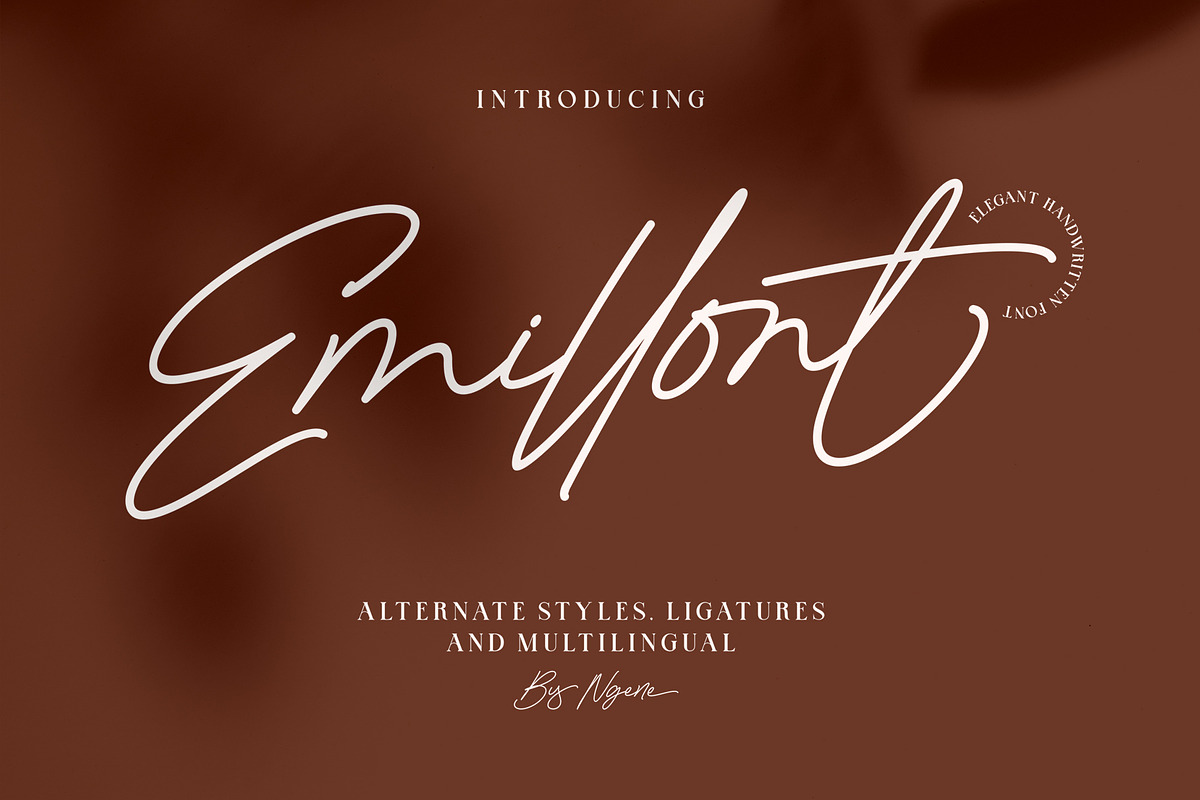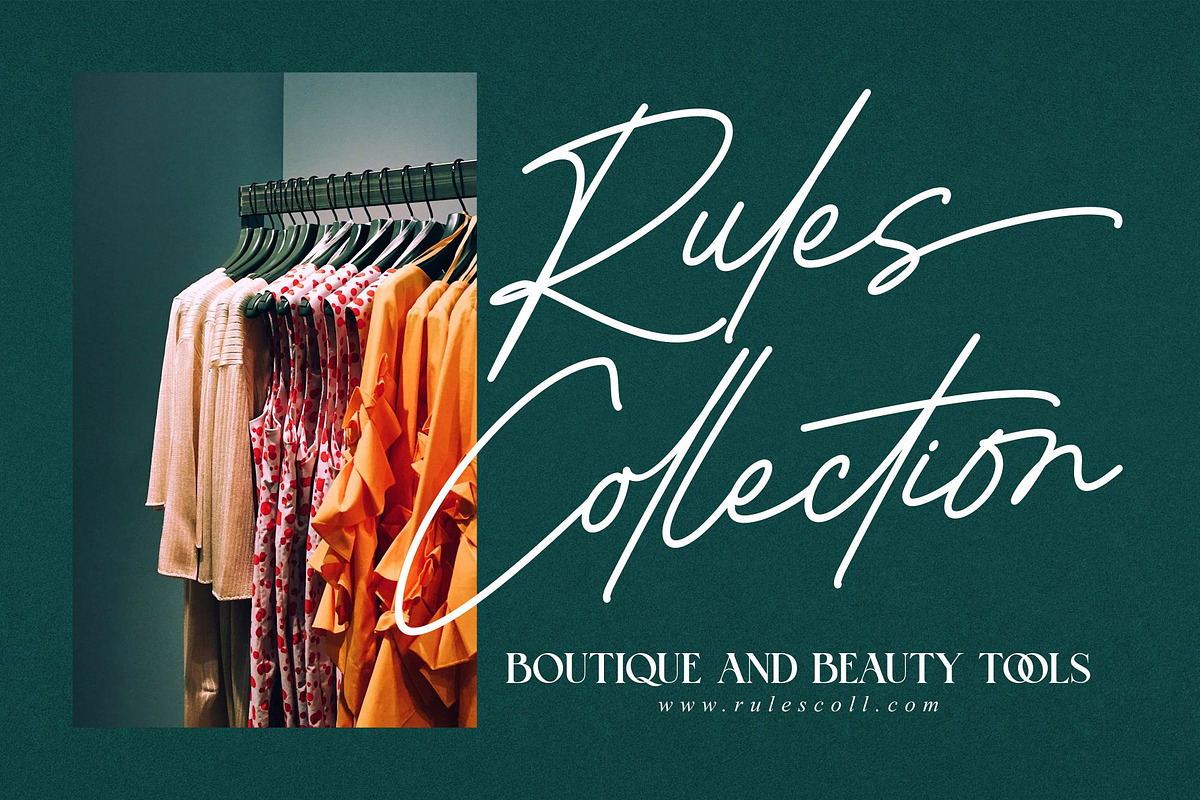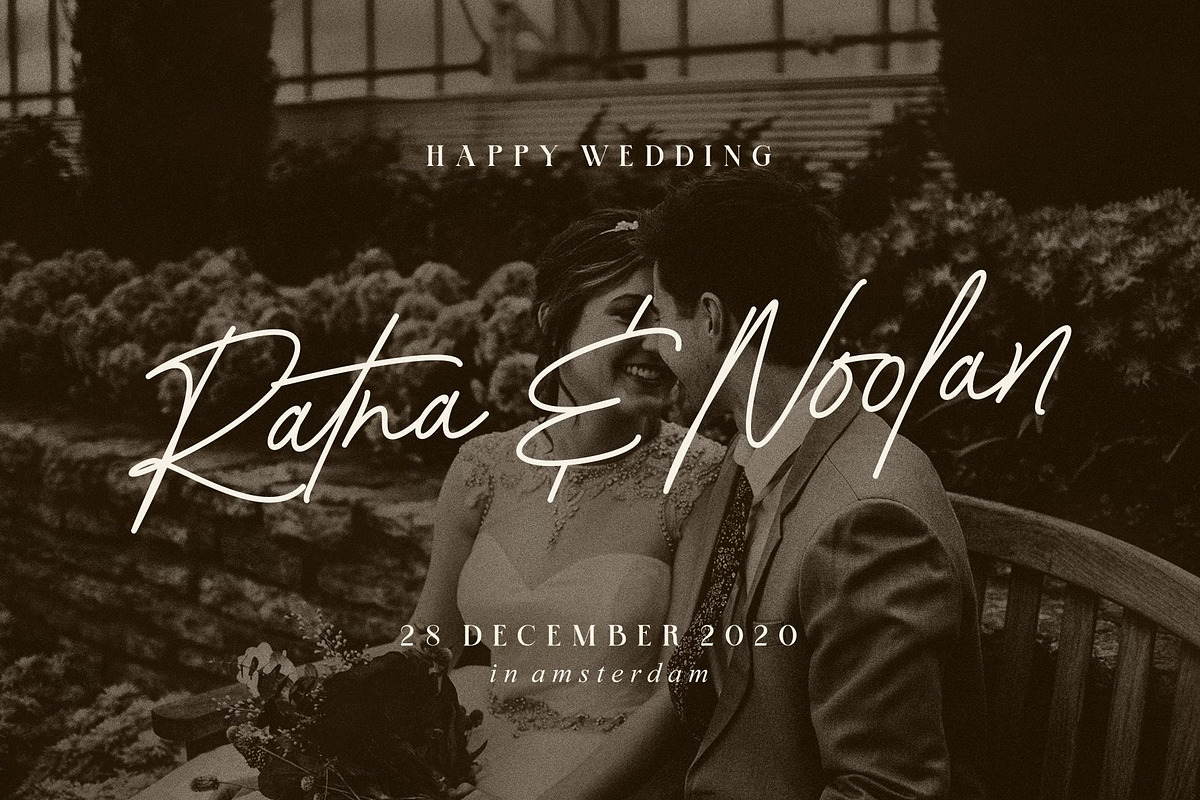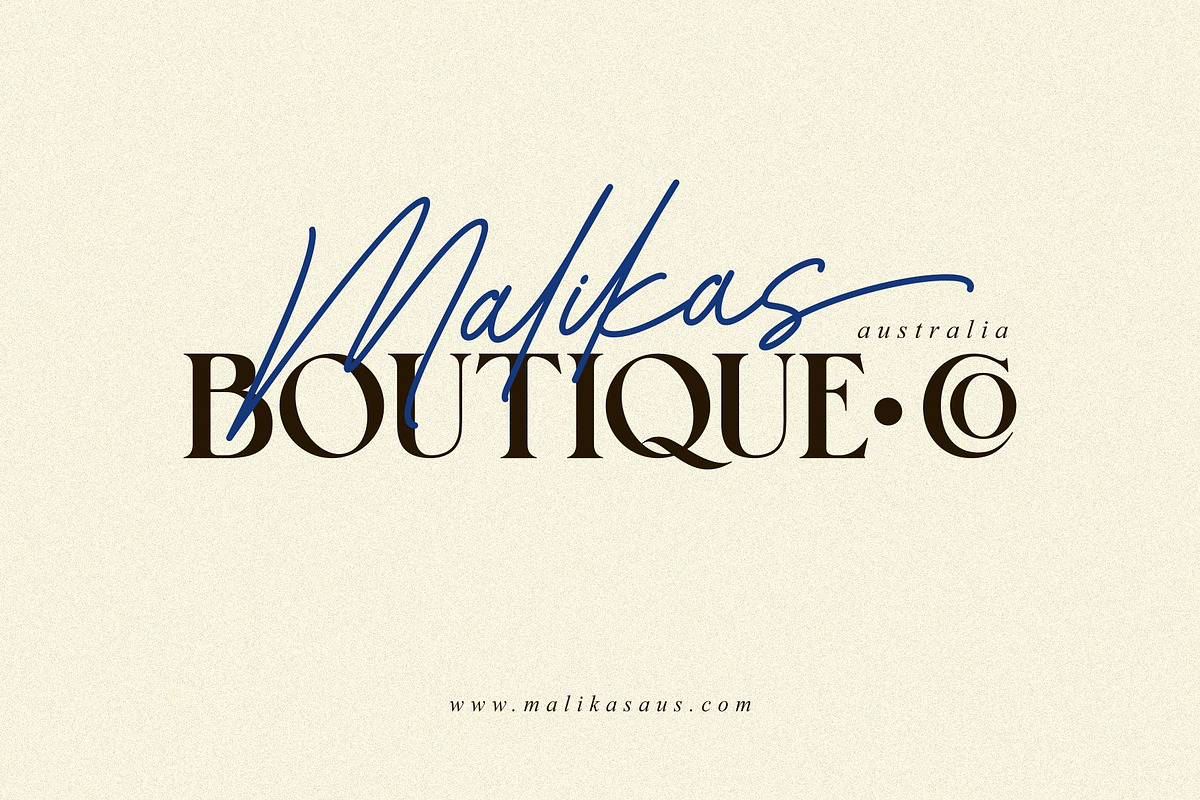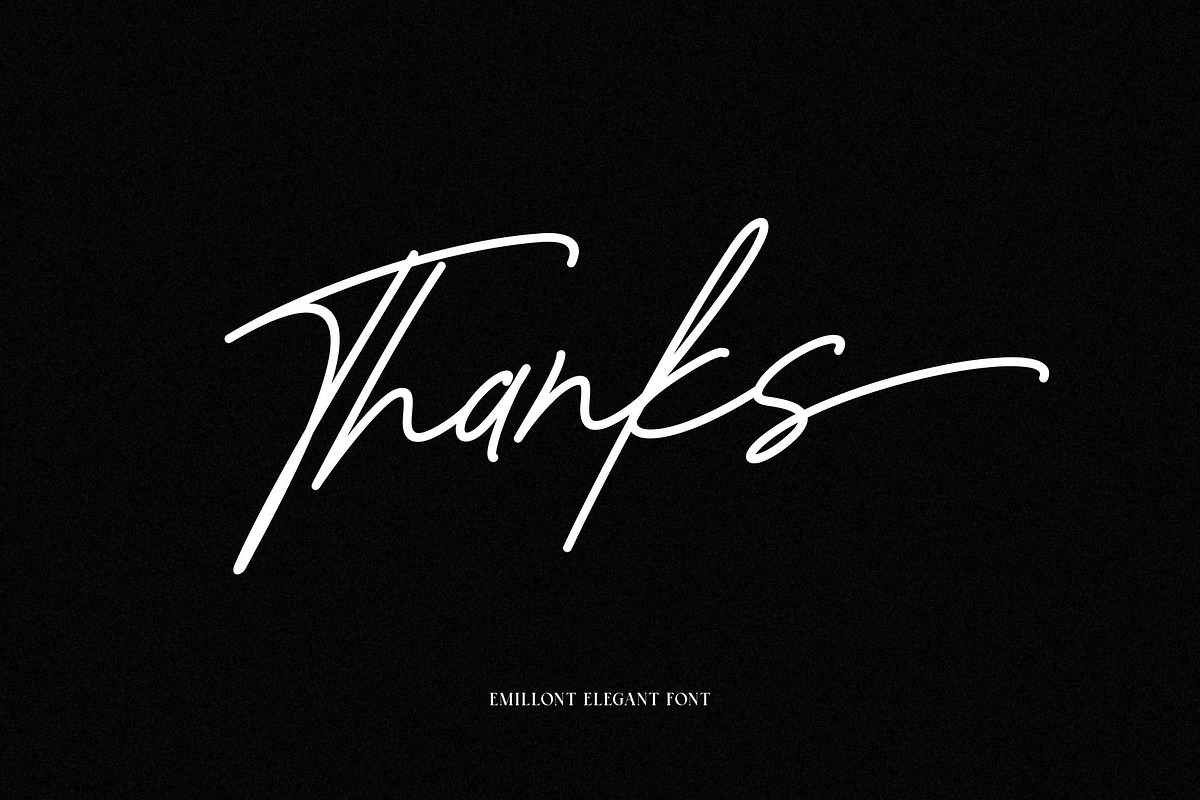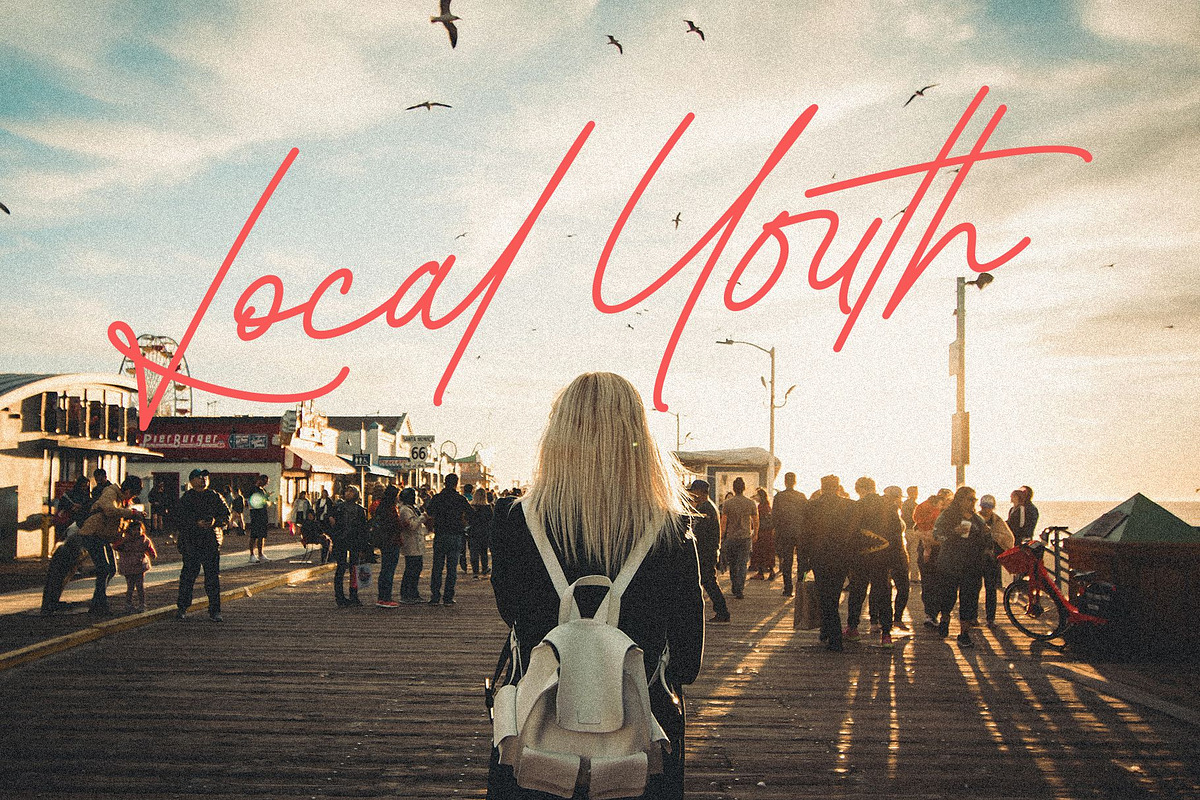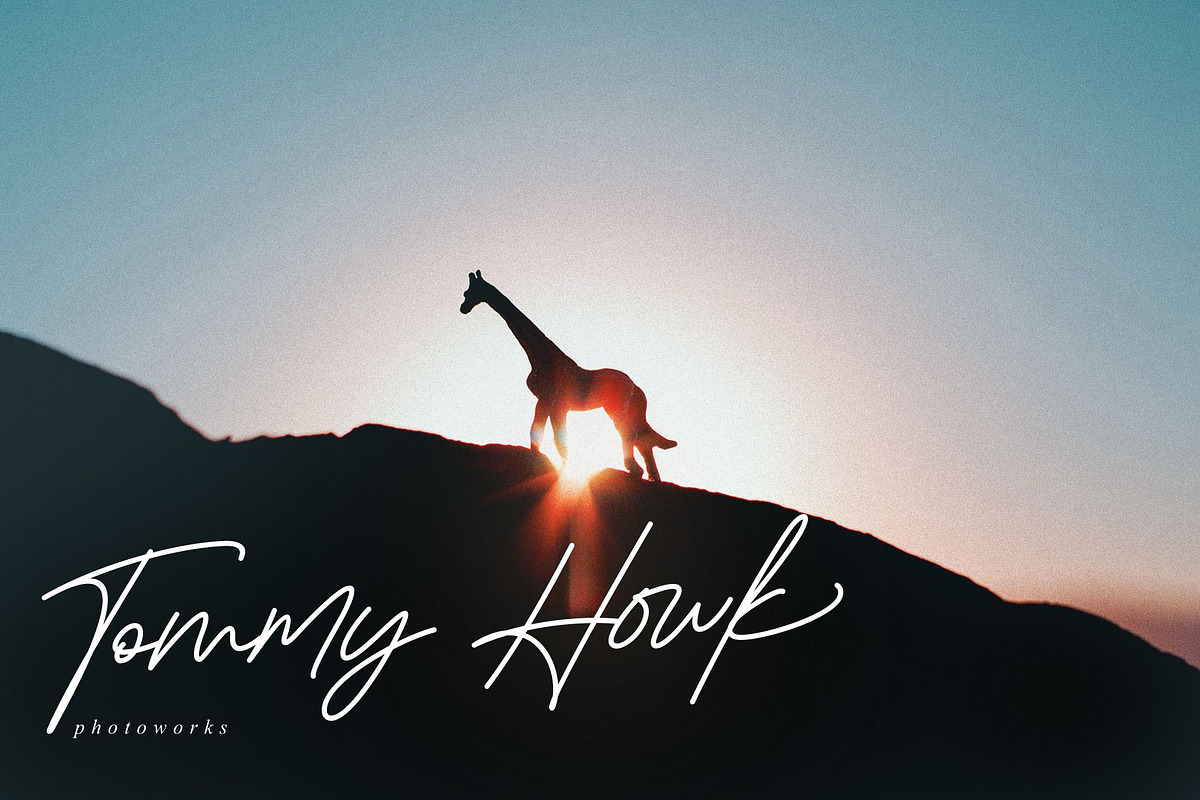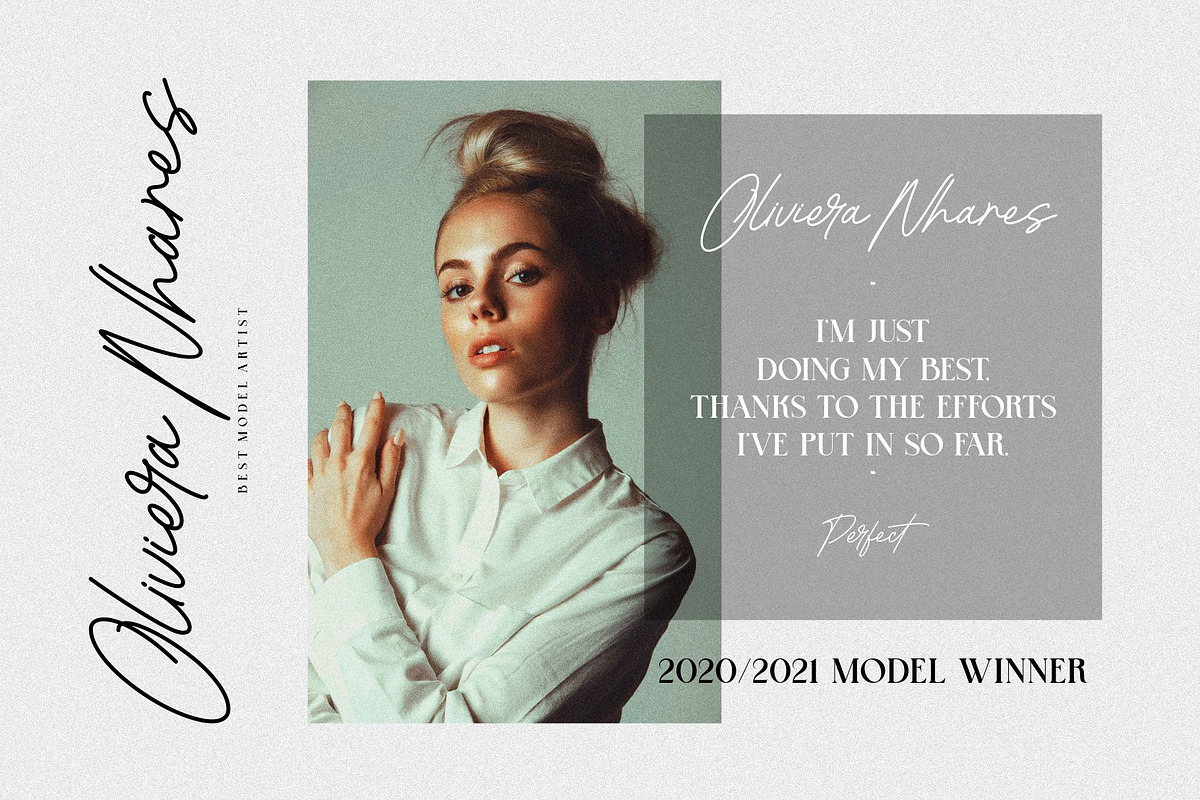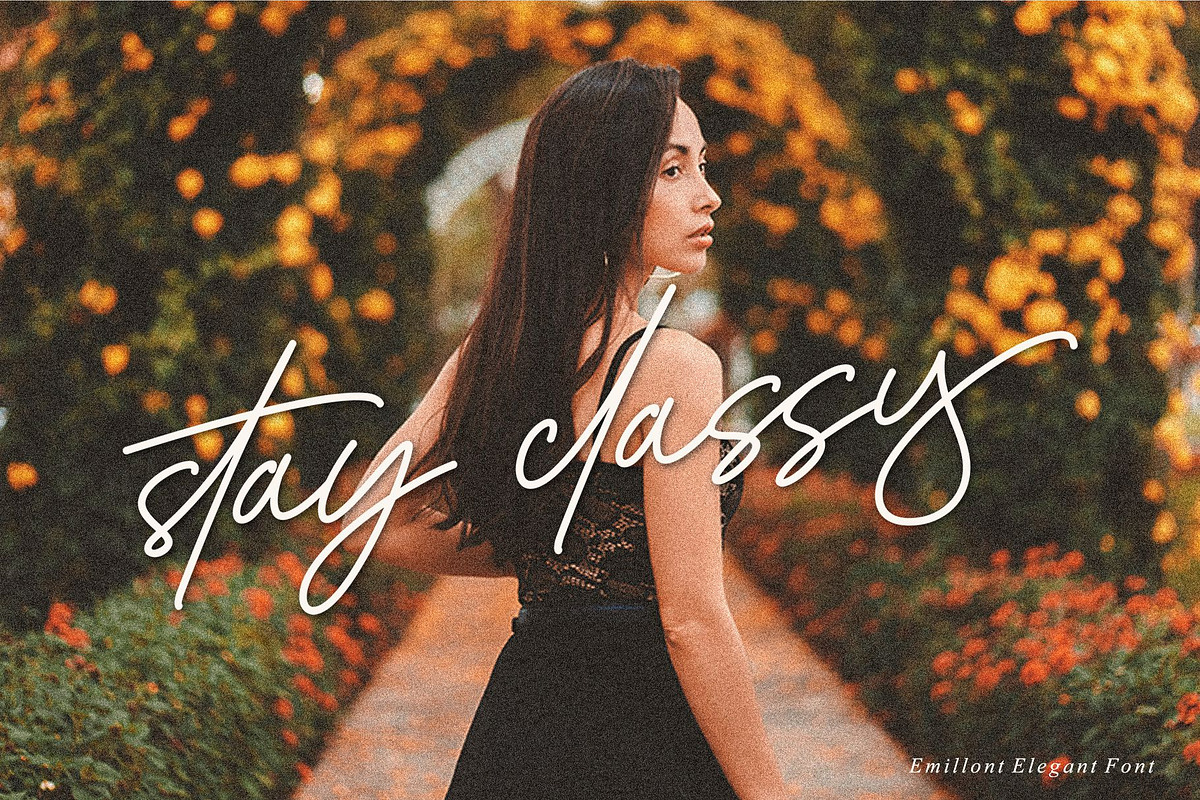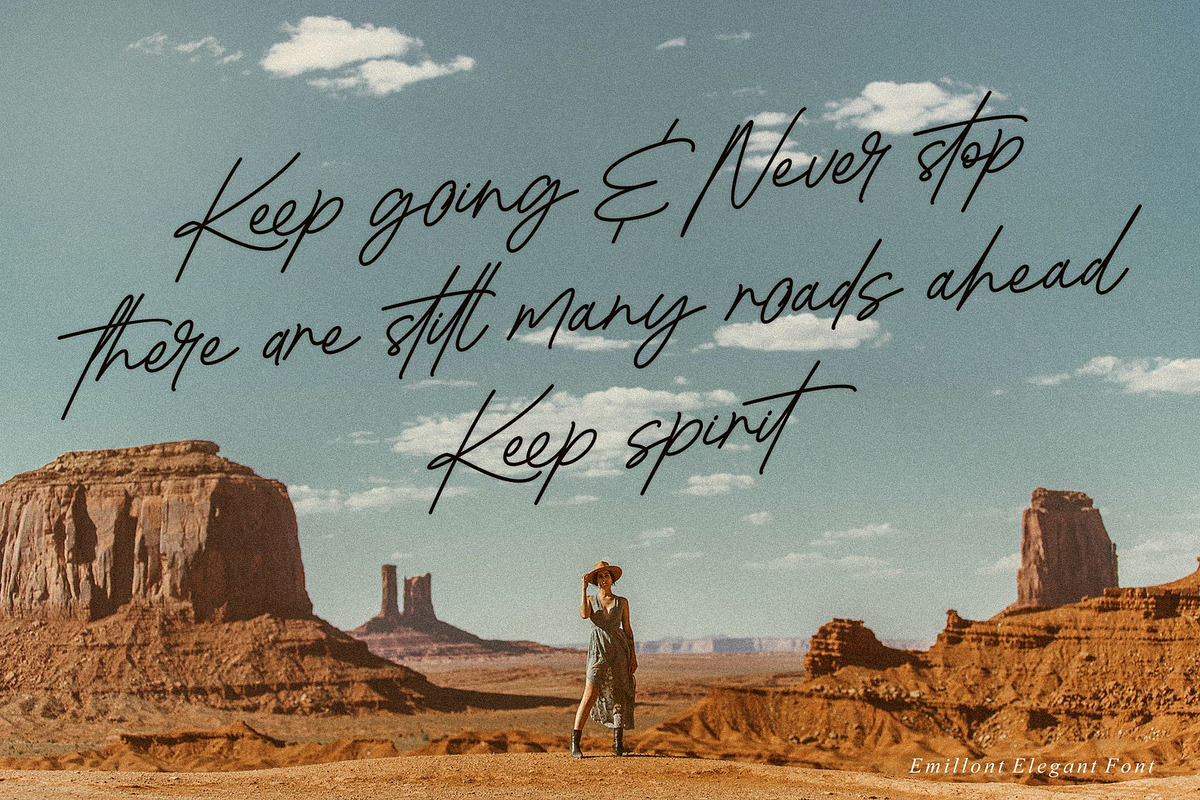
Emillont
About Products Introducing the new "Emillont" with modern and elegant curves.
Emillont has many alternative fonts to make it easier for you to write the way you want. The alternative in it if you use it will look more elegant, Emillont also supports multi languages.
Due to its elegant personality, Emillont is a very versatile font, spanning a wide variety of projects, from bold magazine imagery, to wedding invitations, to branding, poster design, logo types and more.